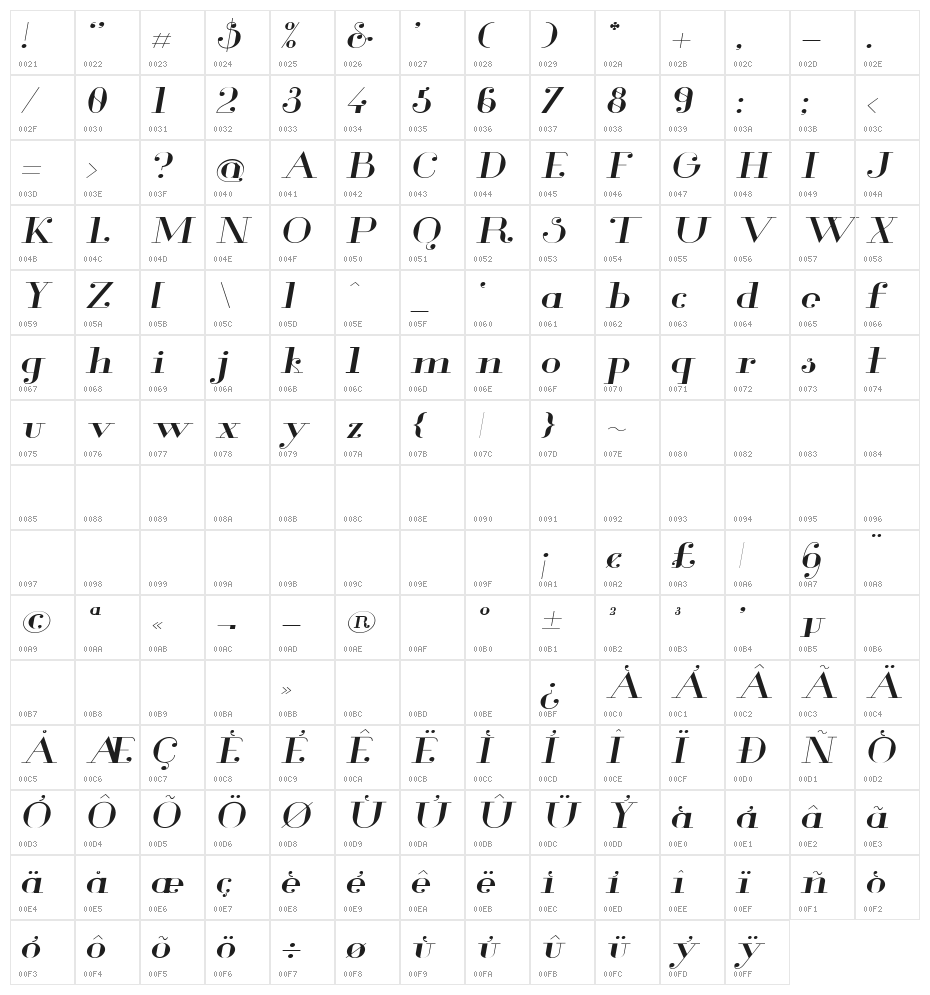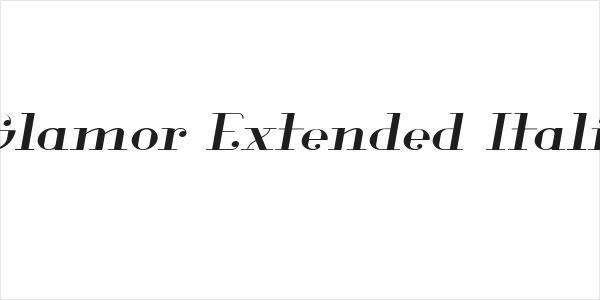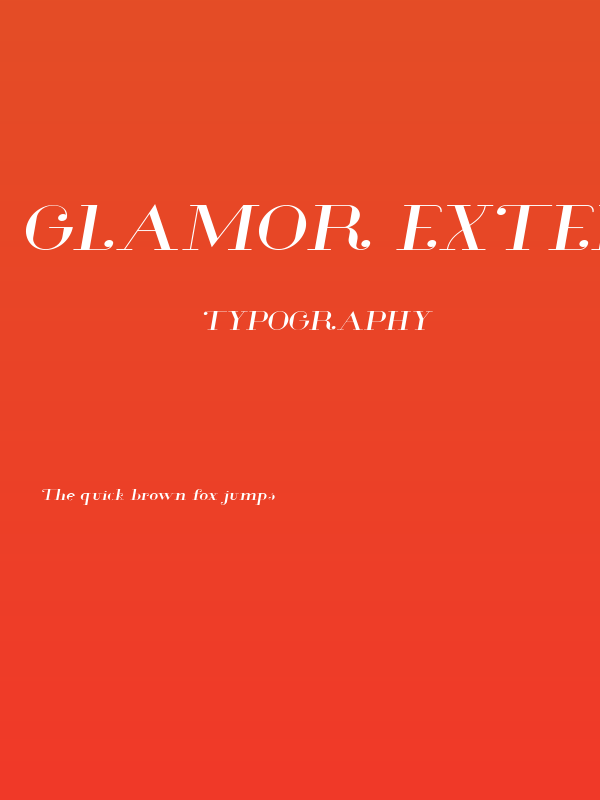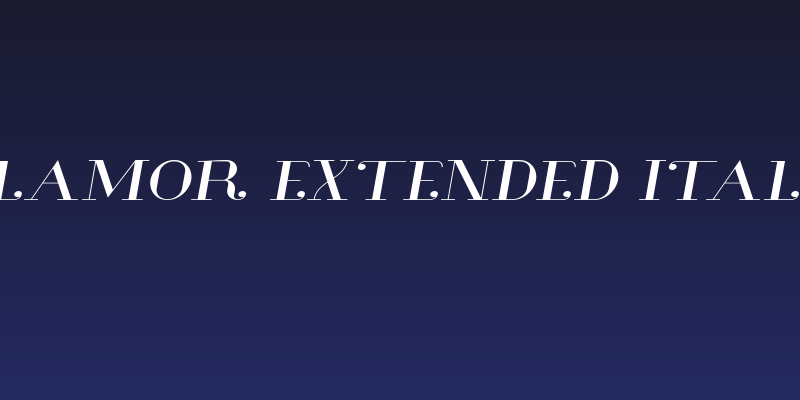
Glamor Extended Italic Font
Glamor Extended Italic Description
This elegant and sophisticated typeface features an extended italic style that exudes a sense of luxury and refinement. The characters are elongated with a graceful slant, creating a dynamic flow across the text. The high contrast between thick and thin strokes adds to its dramatic appeal, making it ideal for high-end branding and editorial design. The uppercase letters are particularly striking, with their elongated forms and delicate serifs, while the lowercase letters maintain a consistent style that complements the overall aesthetic. The numerals and special characters are designed with the same attention to detail, ensuring a cohesive look throughout. This font is perfect for projects that require a touch of elegance and sophistication.
| Overall Style | Elegant, Sophisticated |
| Use Case | Headlines, Editorial design, Branding |
| Proposed Projects | Ideal for luxury branding, fashion magazines, wedding invitations, and elegant packaging design. |